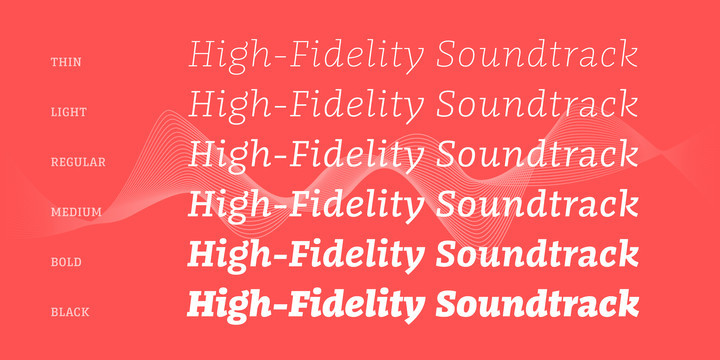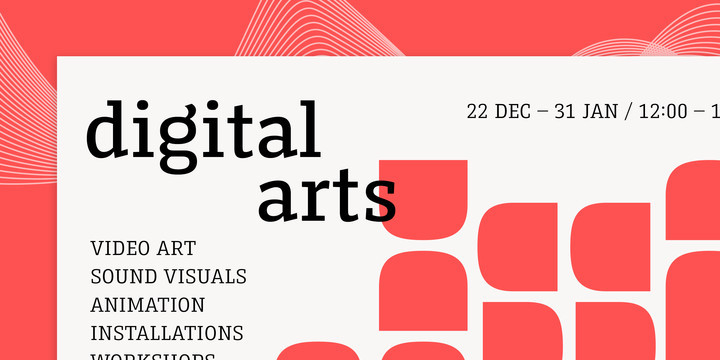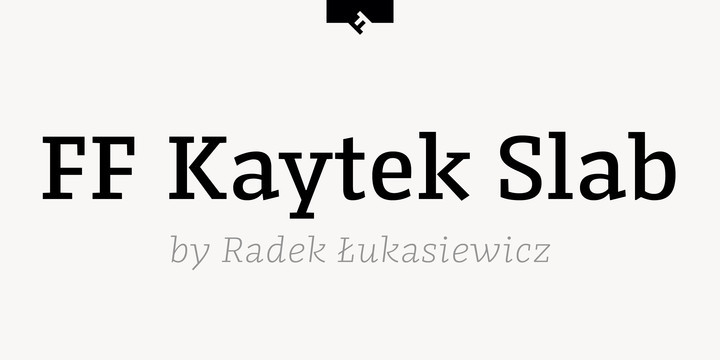
Kaytek Font
Kaytek™ Slab is a fresh take on the correspondence typefaces of the 90s – which were originally designed for the demands of office environments. Just like its predecessors, this text typeface is robust and hard-working – meaning it works well in challenging design or printing environments – but it’s not without personality. Look closer at the lowercase g and a, especially in the italic, and you can see some unexpected elements of subversiveness within the design.